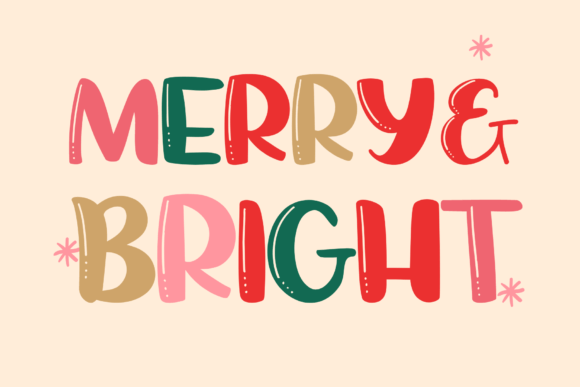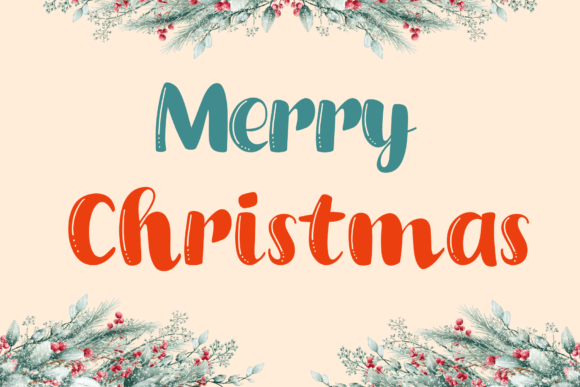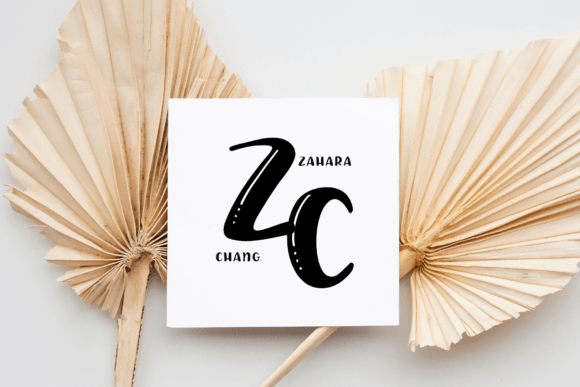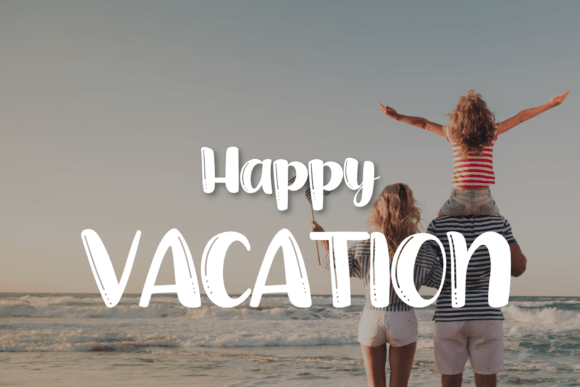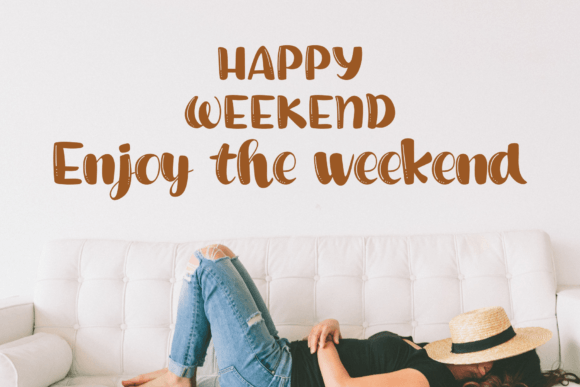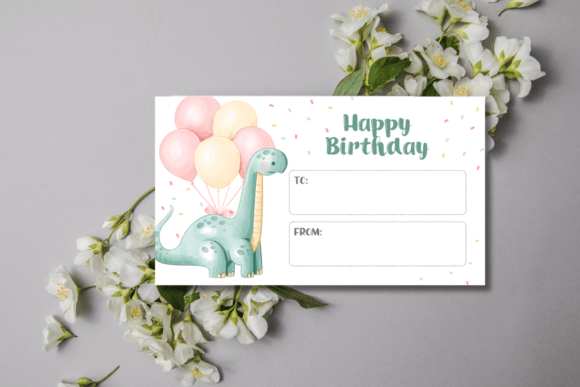
Introduction to Lovely Bold Font
Have you ever stared at a blank canvas, struggling to find the perfect font to bring your creative project to life? It’s a moment we’ve all been there – the blank page staring back at us, our minds racing with ideas, but our typography skills lacking. That’s where Lovely Bold Font comes in – a fun, elegant, and versatile handwritten display font that’s sure to add that extra oomph to your designs.
As a designer, you know how crucial it is to have a reliable design resource that can elevate your work to the next level. Lovely Bold Font is that go-to resource – perfect for adding a touch of sophistication to your wedding designs, social media posts, or product packaging. With its high-quality, free download, and transparent background capabilities, this font is a game-changer for any creative project.
- Features a bold and eye-catching design, perfect for headings and titles in various creative projects.
- A versatile design resource suitable for a variety of creative projects, from graphics to web design.
I recently stumbled upon the Lovely Bold Font, and I must say it’s been a game-changer for my creative projects. The font’s clean and modern design makes it perfect for a variety of uses, from headings to body text.
What works well: ✨ The font is incredibly versatile and can be easily paired with other fonts to create a unique look. The high quality of the font is evident in its smooth lines and well-defined characters. Plus, it’s free to download, which is a major plus in my book!
The Lovely Bold Font also offers a transparent background option, which is perfect for creating a sense of depth and dimension in your designs. This feature alone makes it a valuable addition to any designer’s toolkit.
Limitations: ⚠️ While the Lovely Bold Font is an excellent choice for many projects, it may not be suitable for more formal or traditional designs. Additionally, the font may not be as customizable as some other options on the market.
Overall, I’m thoroughly impressed with the Lovely Bold Font. It’s a fantastic design resource that’s sure to elevate any project. Whether you’re a seasoned designer or just starting out, this font is definitely worth checking out.
Common Use Cases for Lovely Bold Font
Lovely Bold Font is ideal for use in creative projects such as brochures, posters, and business cards. It’s also great for use in digital projects such as presentations and social media graphics. With its high-quality design and transparent background, Lovely Bold Font is a versatile design resource that can be used in a variety of contexts.